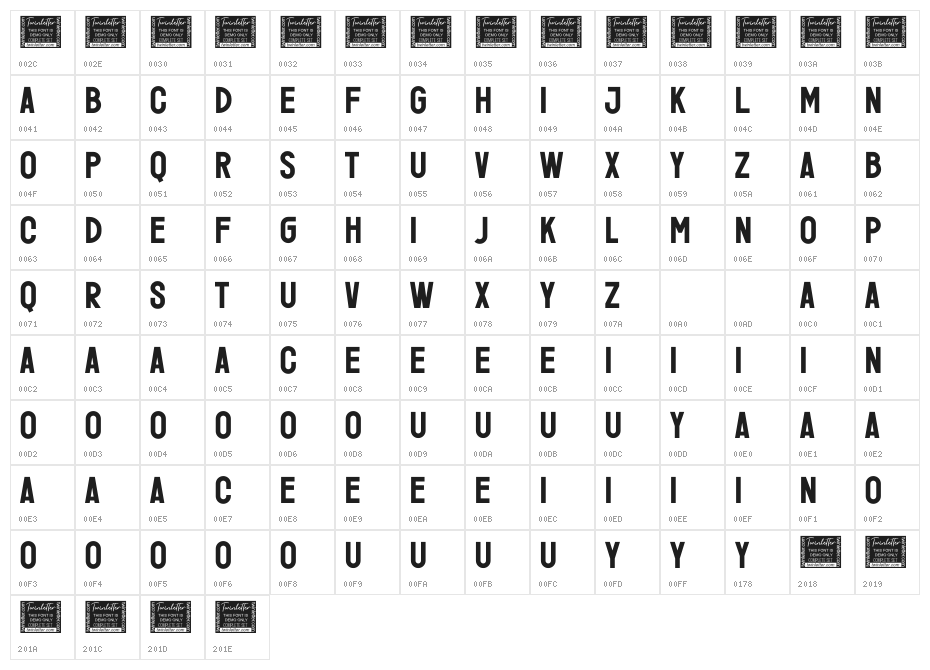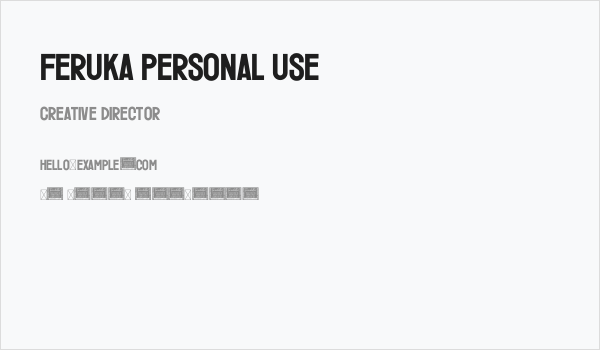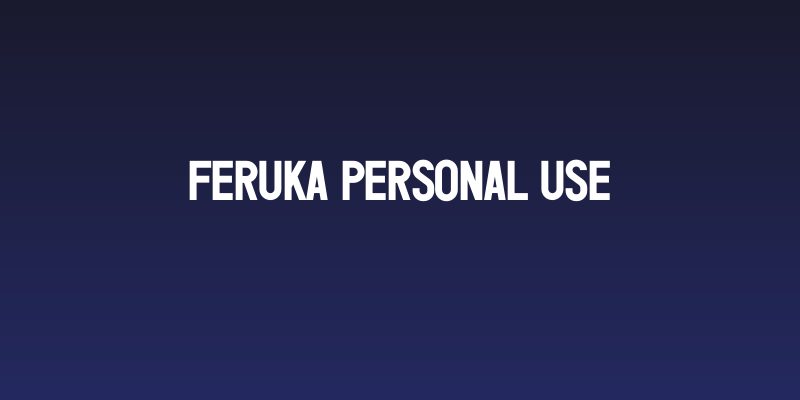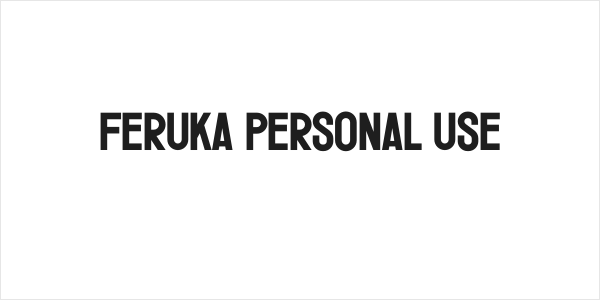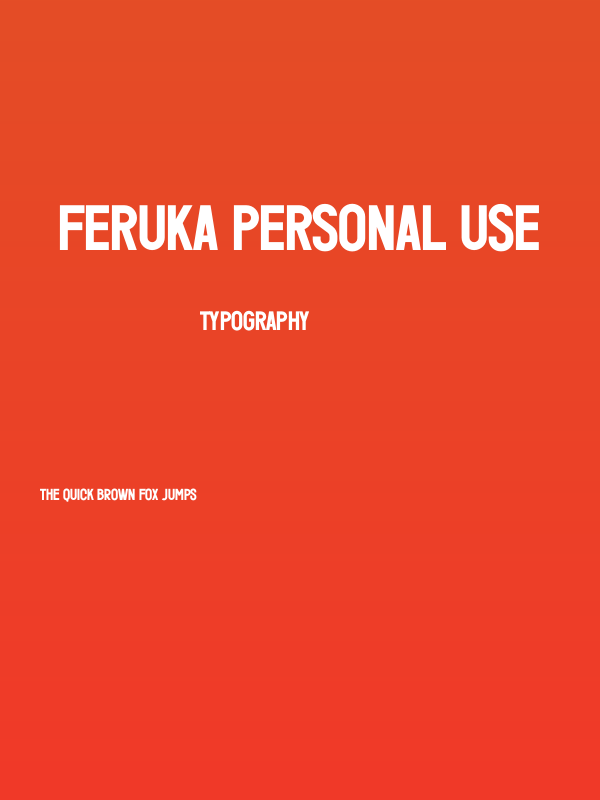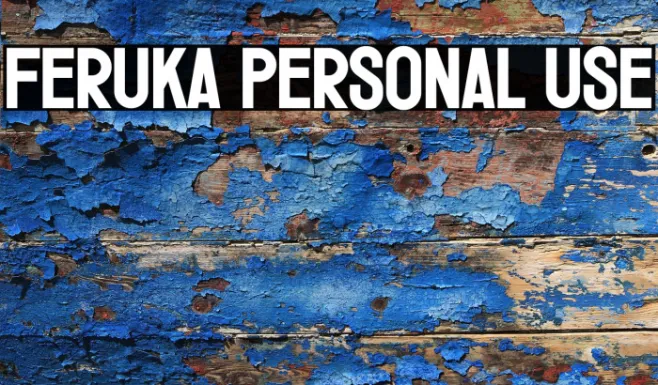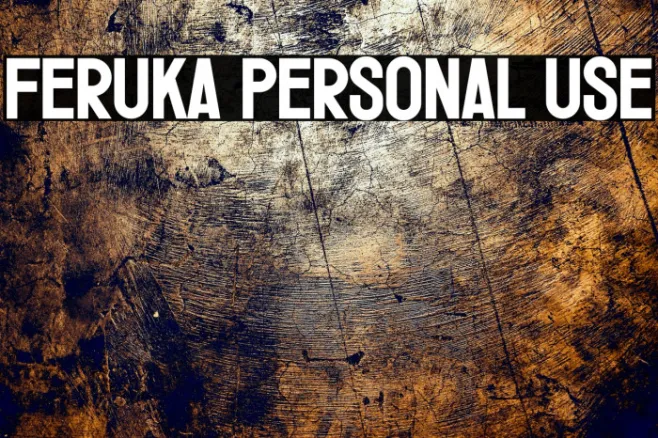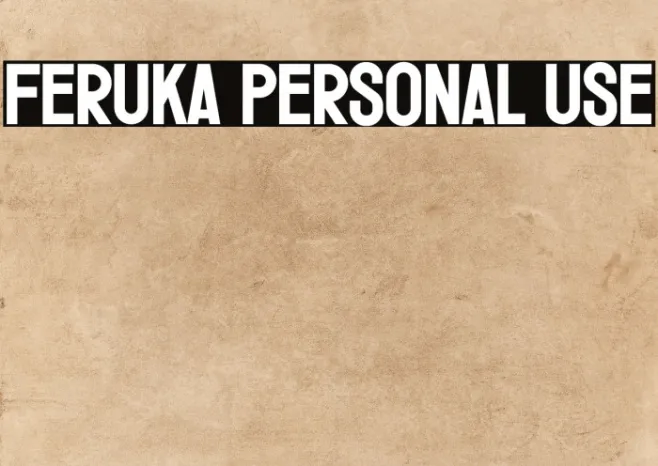
Feruka Personal Use Font
Feruka Personal Use Description
This font features bold, uppercase letters with a strong, geometric structure. The characters are designed with a consistent weight, giving them a solid and impactful appearance. The strokes are uniform, contributing to a clean and modern aesthetic. The font lacks any decorative elements, focusing on clarity and readability. Its boldness makes it suitable for attention-grabbing headlines or titles. The spacing between characters is tight, enhancing the compact and cohesive look of the text. This font is ideal for projects that require a strong visual presence.
| Proposed Projects | Ideal for headlines, posters, branding, and advertising materials. |